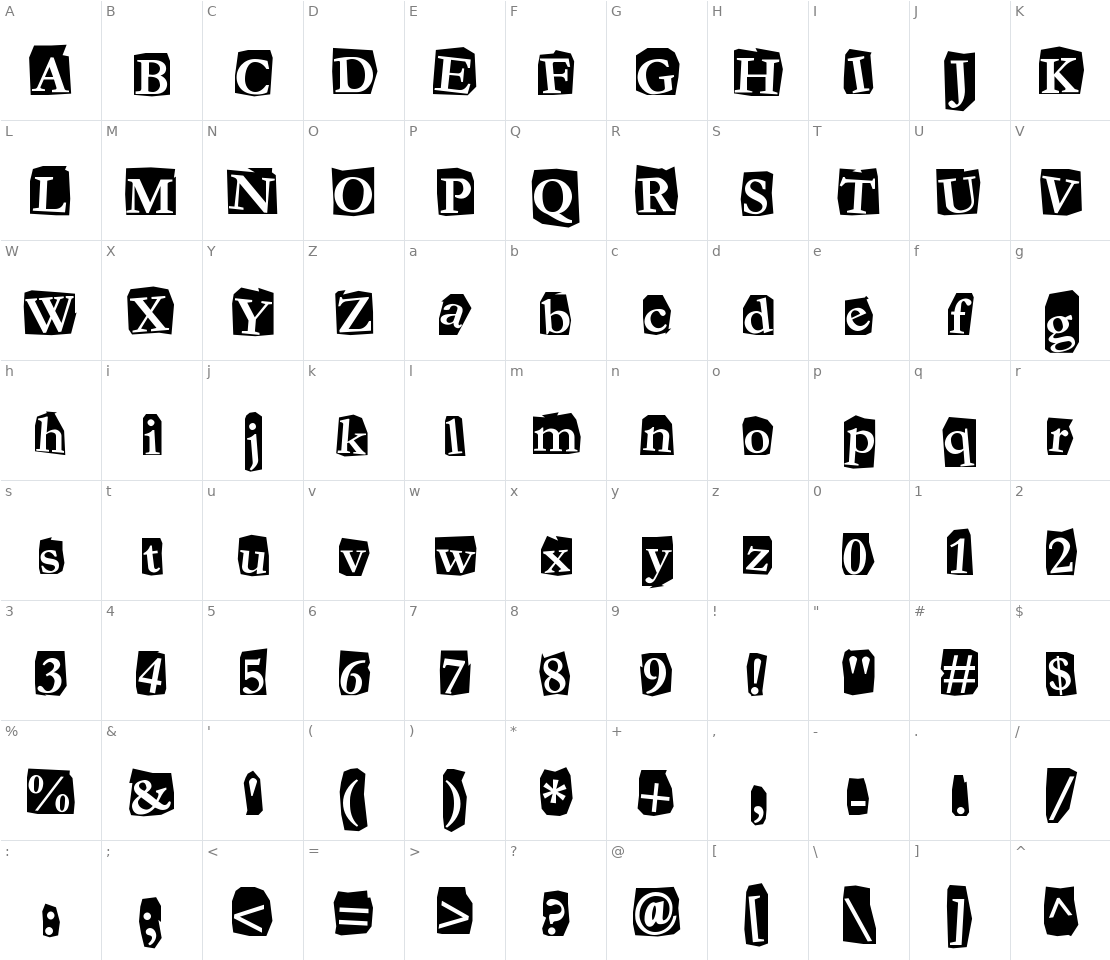
Fanzine
Fanzine is a cut-and-paste ransom note typeface from Digital Graphic Labs, with each letter looking like it was clipped from a different magazine and slapped onto the page. The mixed styles, uneven baselines, and rough edges give it an authentically chaotic, punk-zine energy. Built for headlines, posters, and album art where you want something that feels deliberately unpolished and a little confrontational.